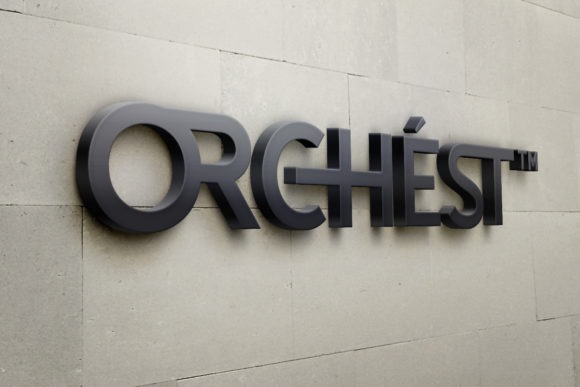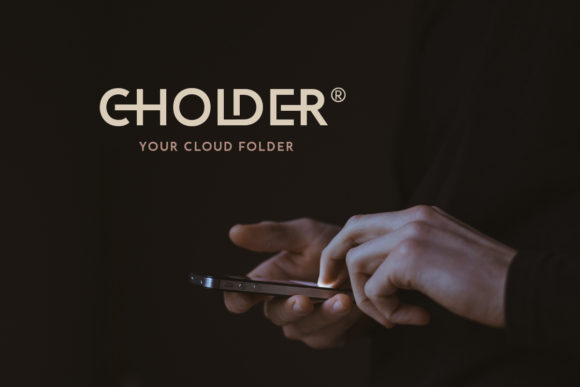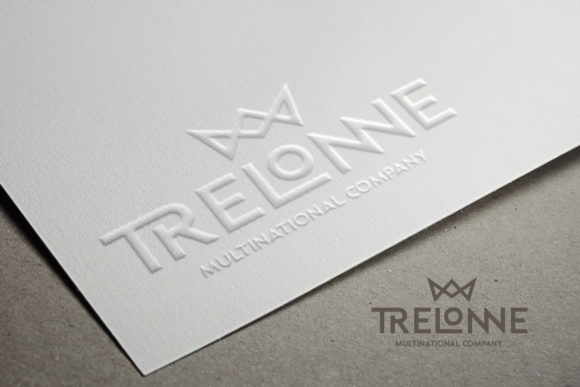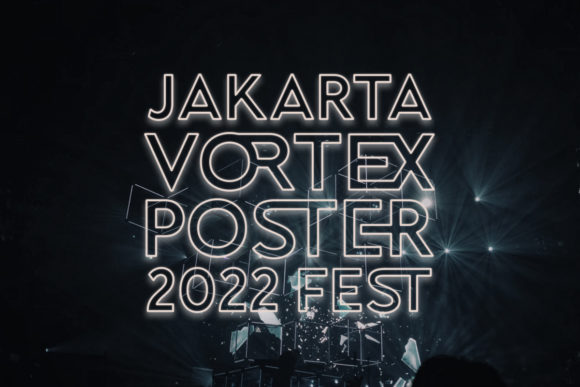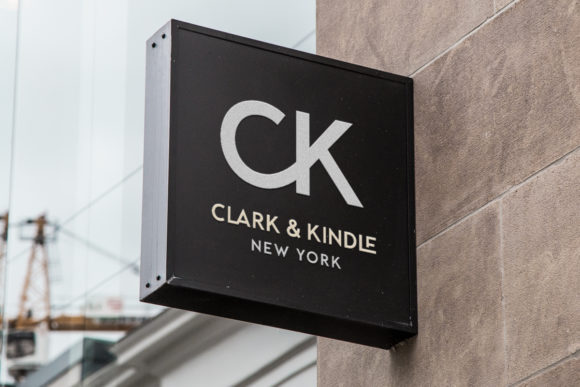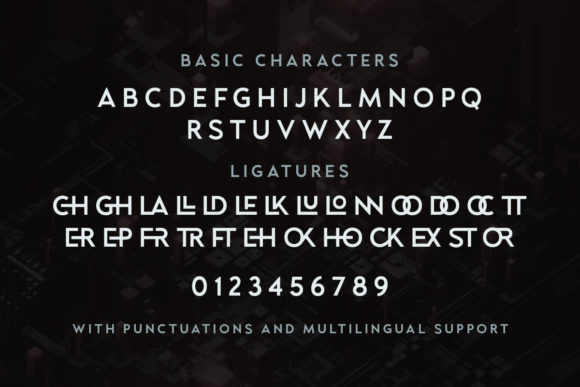
Discovering the Perfect Font for Your Next Big Idea
Have you ever been brainstorming a project and suddenly, the perfect font pops into your mind? That’s exactly what happened to us when we stumbled upon Cloudsters Font. Its bold and simple design is like a breath of fresh air, making it the perfect companion for any creative endeavor.
Cloudsters Font is a display font designed to stand out from the crowd. Its futuristic and clean aesthetic makes it a versatile choice for a wide range of design ideas. Whether you’re working on a sci-fi themed campaign or a minimalist logo, Cloudsters Font is sure to bring your vision to life. As a valuable tool for designers, Cloudsters Font offers a unique blend of style and functionality that’s hard to find elsewhere.
With its limitless possibilities, Cloudsters Font is a game-changer for designers looking to elevate their work. So, what are you waiting for? Dive into the world of Cloudsters Font and discover the perfect font to bring your next big idea to life.
Cloudsters Font Key Features
- Font Family: Cloudsters Font is a modern sans-serif font family designed for digital use.
- Character Set: The font family includes a wide range of characters, including Latin, Greek, Cyrillic, and punctuation marks, making it suitable for global content.
- Unique Characteristics: Cloudsters Font features a unique blend of modern and minimalist design elements, including clean lines, rounded edges, and subtle texture, making it an excellent choice for digital interfaces, branding, and advertising.
Cloudsters Font Review
Overall, I’m a fan of Cloudsters Font. It’s a modern, clean sans-serif font that’s perfect for digital products and websites. ✨ The font’s open and airy feel makes it ideal for creating a sense of space and calmness. It’s also highly legible, making it easy to read even at small font sizes.
The Cloudsters Font also includes a range of weights and styles, from light to bold, which gives designers a lot of flexibility when it comes to choosing the right look and feel for their project. ✨ The font’s versatility and scalability make it a great choice for a wide range of applications, from logos to body text.
- ⚠️ The font may not be suitable for projects that require a more formal or traditional feel. It’s a modern font, after all, and may not be the best choice for projects that require a more conservative or classic look.
- ⚠️ Some users may find the font to be too minimalist or bland. While I think the font’s simplicity is a strength, others may find it lacking in personality or character.
Overall, I think Cloudsters Font is a solid choice for designers looking for a modern, clean sans-serif font. While it may not be suitable for every project, it’s a versatile and highly legible font that’s perfect for digital products and websites. I would definitely recommend it to designers who are looking for a font that’s easy to read and works well in a variety of contexts.
Cloudsters Font is ideal for creating modern and futuristic designs. Some common use cases include:
- Creating futuristic logos and branding materials.
- Designing science fiction-inspired graphics and illustrations.
- Adding a touch of modernity to business presentations and reports.
For the best results, pair Cloudsters Font with bold and bright colors to create a striking visual effect.